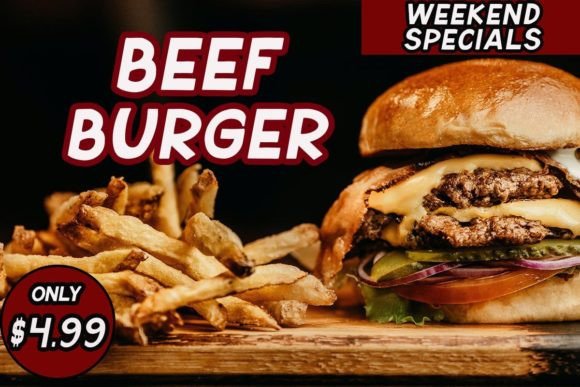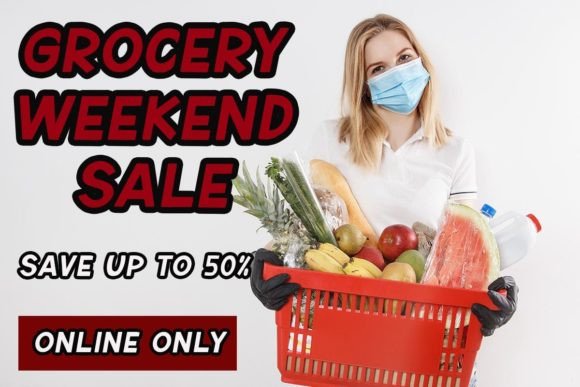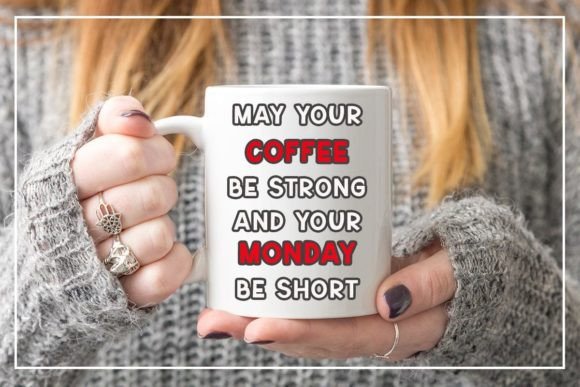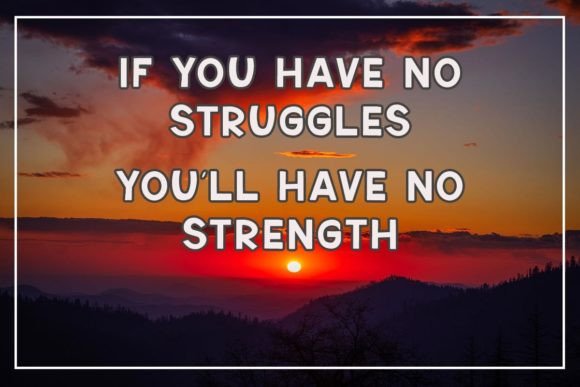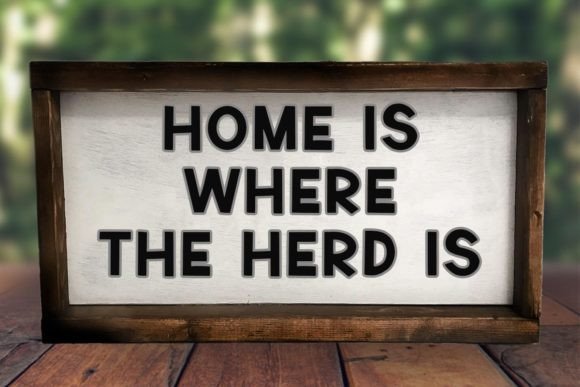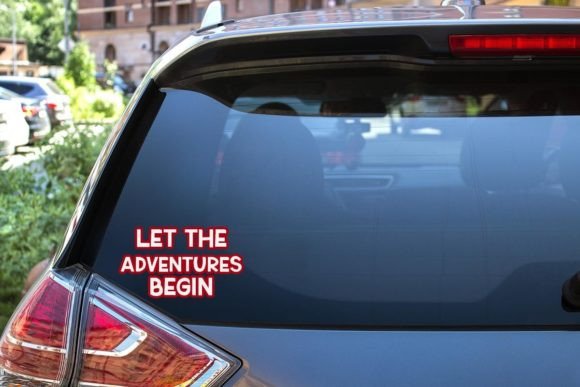
Discover the Power of a Casual Touch
As designers, we’ve all been there – staring at a blank canvas, trying to bring our vision to life. And then, it happens – a spark of inspiration strikes, and we know exactly what we need to create something truly special. For me, that moment came when I stumbled upon the perfect font to add a casual touch to my designs. That font is Grow Strong Font, a beautiful handwritten thick sans serif font that’s perfect for logos, branding, lettering, cards, and any project that needs a laid-back vibe.
The Grow Strong Font is more than just a font – it’s a game-changer for designers who want to add a personal touch to their work. With its thick, bold lines and unique character, it’s the perfect way to make your designs stand out from the crowd. Whether you’re a seasoned pro or just starting out, the Grow Strong Font is an essential addition to your design toolkit. So why not give it a try and see the amazing results for yourself?
Grow Strong Font Key Features
- Unique Characteristics: Grow Strong Font features a unique blend of modern and vintage elements, making it an ideal choice for designers looking to add a touch of sophistication and elegance to their projects.
Designer Review: Grow Strong Font
As a designer, I was excited to dive into the Grow Strong Font, but my experience was a mixed bag. ✨ First, the font does a great job of capturing the essence of “growth” with its organic, hand-drawn feel. It’s perfect for designs that need a natural, earthy vibe.
Here are some of the font’s strengths:
- Unique, natural feel
- Perfect for designs related to health, wellness, and the outdoors
- Customizable options for fine-tuning the look
However, there are some limitations to consider ⚠️:
- Some characters may appear a bit rough or uneven
- Lack of extensive language support (limited to a few languages)
- Not ideal for designs that require precise typography or small font sizes
Overall, the Grow Strong Font is a great choice for designers looking for a natural, earthy feel. While it may not be perfect for every project, it’s a solid addition to any designer’s toolkit. With a bit of finesse and attention to detail, the Grow Strong Font can help bring your designs to life.
The Grow Strong Font is ideal for:
- Typography-heavy designs
- Emphasizing important text
- Creating a strong brand identity
Tips for Getting the Most Out of Grow Strong Font
Use Grow Strong Font in conjunction with bold colors and striking graphics to create a visually appealing design.
Experiment with different font sizes and styles to add depth and interest to your design.
Alternatives to Grow Strong Font
Great Vibes Font is a modern, elegant script font suitable for creative and artistic projects. It is ideal for headings, logos, and titles that require a touch of sophistication. Great Vibes Font is similar to Grow Strong Font in terms of its modern and stylish feel, but it has a more refined and polished appearance.
Dancing Script Font is a cursive script font that is perfect for adding a touch of playfulness and elegance to your designs. It is suitable for headings, titles, and logos that require a sense of movement and energy. Compared to Grow Strong Font, Dancing Script Font has a more fluid and dynamic feel, making it ideal for projects that require a sense of movement and energy.